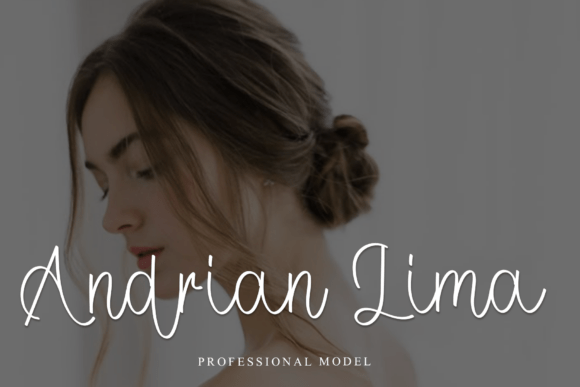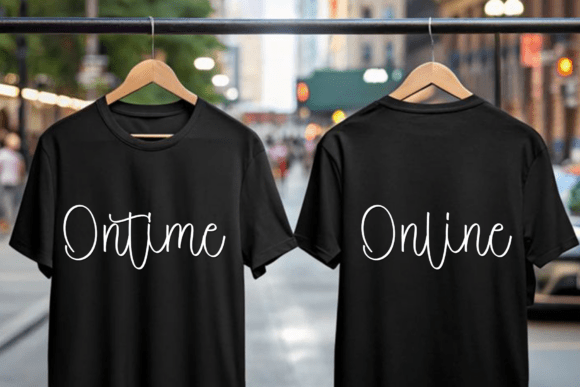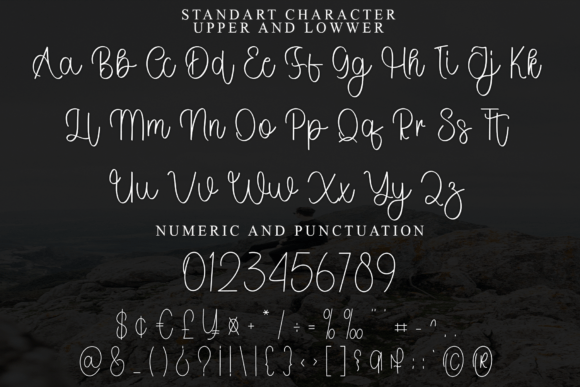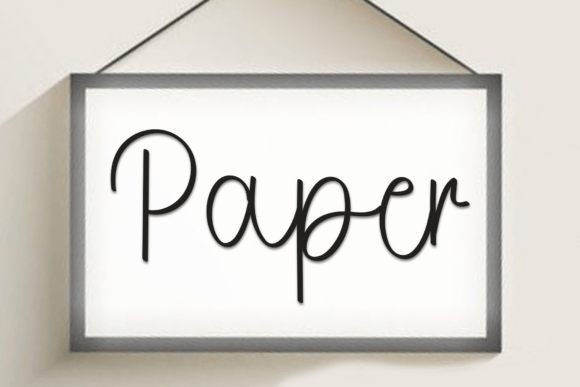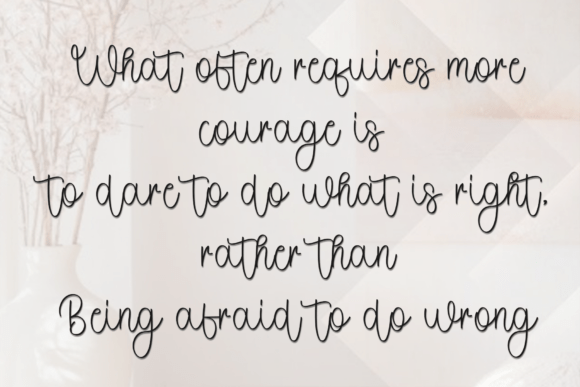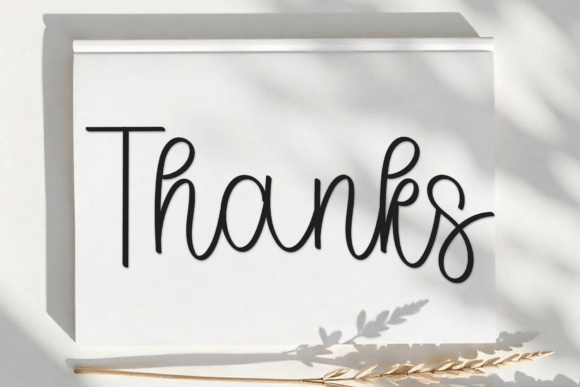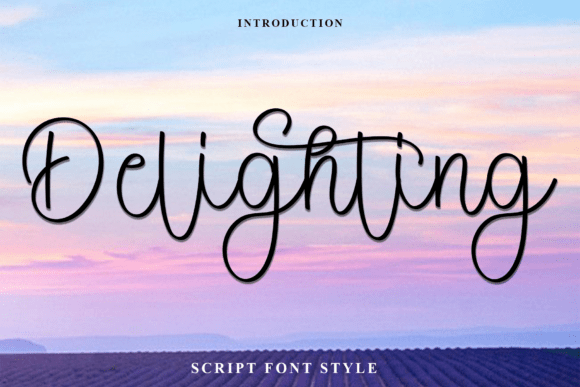
Introducing Delighting Font: A Unique and Versatile Typeface for Creative Projects
In the world of design, a font can make or break a project. It’s the perfect blend of form and function, conveying a message while also evoking emotions. For designers and crafters looking for a font that stands out from the crowd, Delighting Font is an excellent choice. This beautiful and eye-catching typeface is designed with a soft, unique touch that adds a special character to any design project.
The Distinctive Features of Delighting Font
Delighting Font boasts distinctive strokes that give it a special character, making it meaningful and versatile for future use. Its unique design ensures that it stands out from more traditional fonts, adding a touch of personality to any project. Whether you’re working on a design project, craft, or other creative work, Delighting Font is the perfect choice.
One of the key features of Delighting Font is its wide range of characters. This means that designers and crafters have access to a vast array of letters, numbers, and symbols to use in their projects. From simple designs to complex artworks, Delighting Font has everything you need to bring your vision to life.
Perfect for Design Projects and Creative Works
Delighting Font is perfect for a wide range of design projects, including crafts, posters, flyers, and more. Its unique and eye-catching design ensures that your work will stand out from the crowd, grabbing the attention of your audience. Whether you’re a professional designer or a crafter, Delighting Font is an excellent choice for any creative project.
This compatibility, combined with its versatility, makes Delighting Font an excellent choice for a wide range of products. From business cards to billboards, Delighting Font is the perfect choice for any design project. Its natural font style ensures that it will blend in with any design aesthetic, while its unique character ensures that it will stand out.
Enhance Your Designs with Delighting Font
Delighting Font is designed to enhance your designs, making them appealing to many audiences across different artistic and creative fields. Its unique and eye-catching design ensures that your work will grab the attention of your audience, while its versatility ensures that it will work well in a wide range of contexts.
Whether you’re a professional designer or a crafter, Delighting Font is an excellent choice for any creative project. Its distinctive strokes and wide range of characters make it the perfect choice for designers and crafters looking for a font that stands out from the crowd.
In conclusion, Delighting Font is a unique and versatile typeface that’s perfect for designers and crafters. Its distinctive strokes and wide range of characters make it an excellent choice for any creative project. With its compatibility and versatility, Delighting Font is the perfect choice for a wide range of products. Enhance your designs with Delighting Font and take your creative projects to the next level.